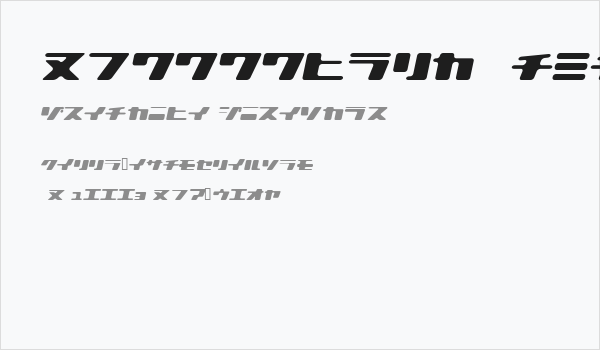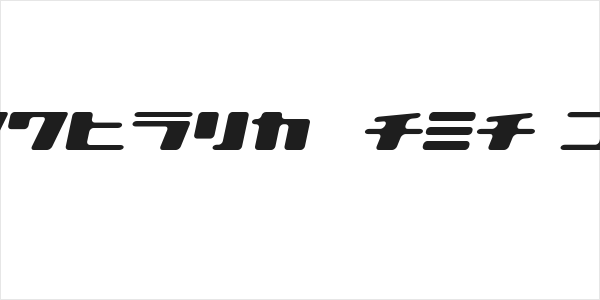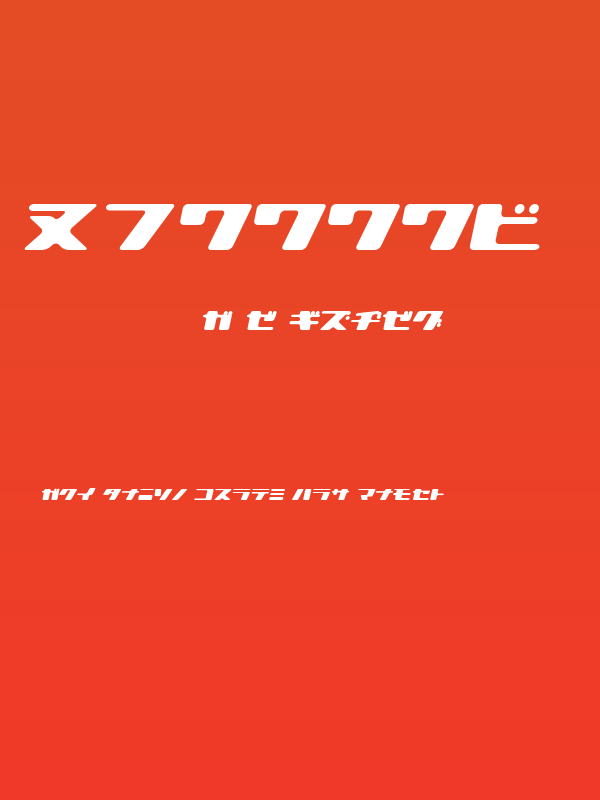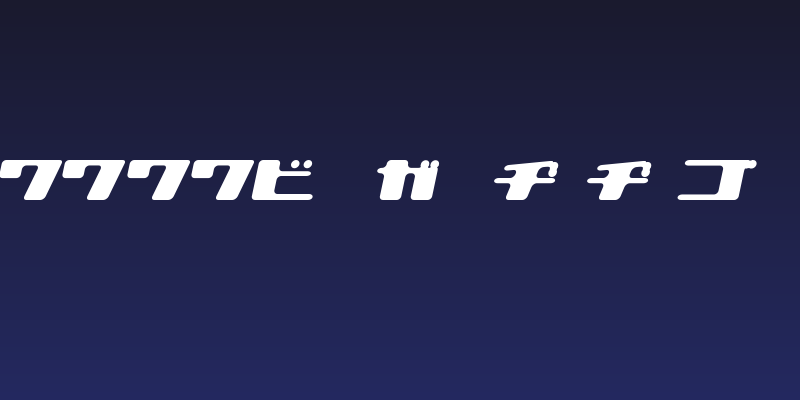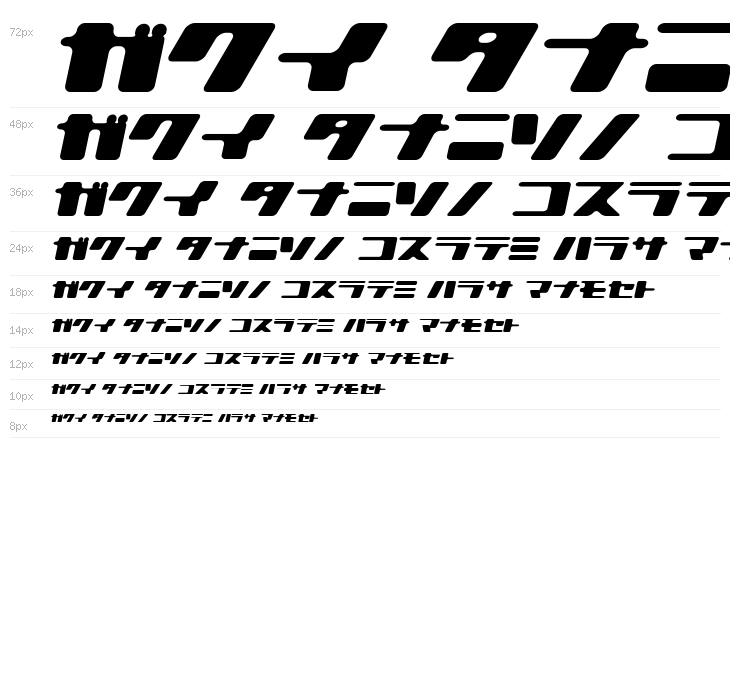
120000volt KanaOblique Font
120000volt KanaOblique Description
This font features a bold and dynamic style with a strong oblique slant, giving it a sense of movement and energy. The characters are thick and robust, with a futuristic and modern appearance. The strokes are consistent in weight, providing a uniform look across all characters. The design incorporates sharp angles and smooth curves, creating a visually striking and distinctive appearance. This font is well-suited for projects that require a bold statement and a contemporary feel.
Proposed ProjectsIdeal for branding, posters, headlines, and any design that needs a modern and energetic touch.